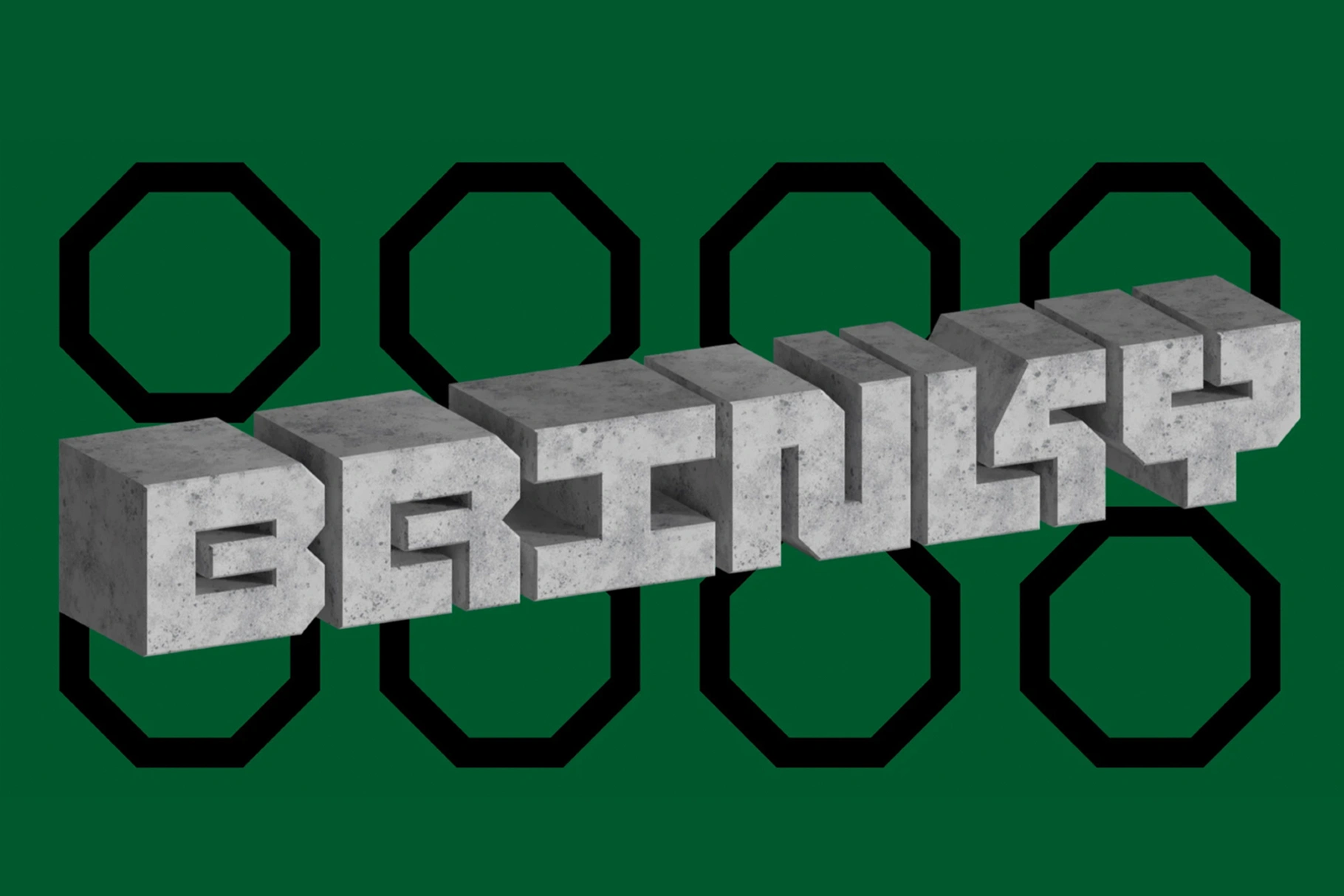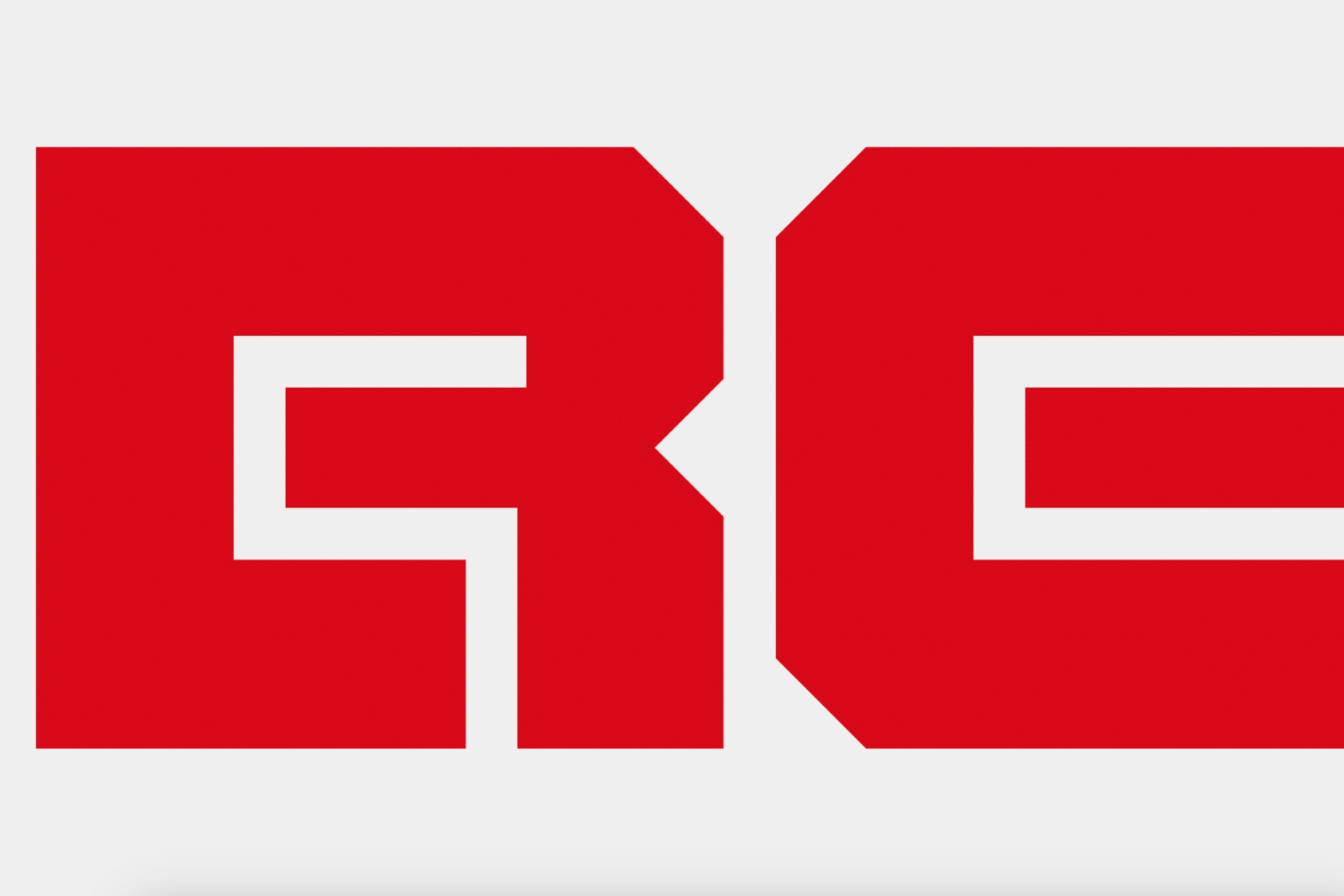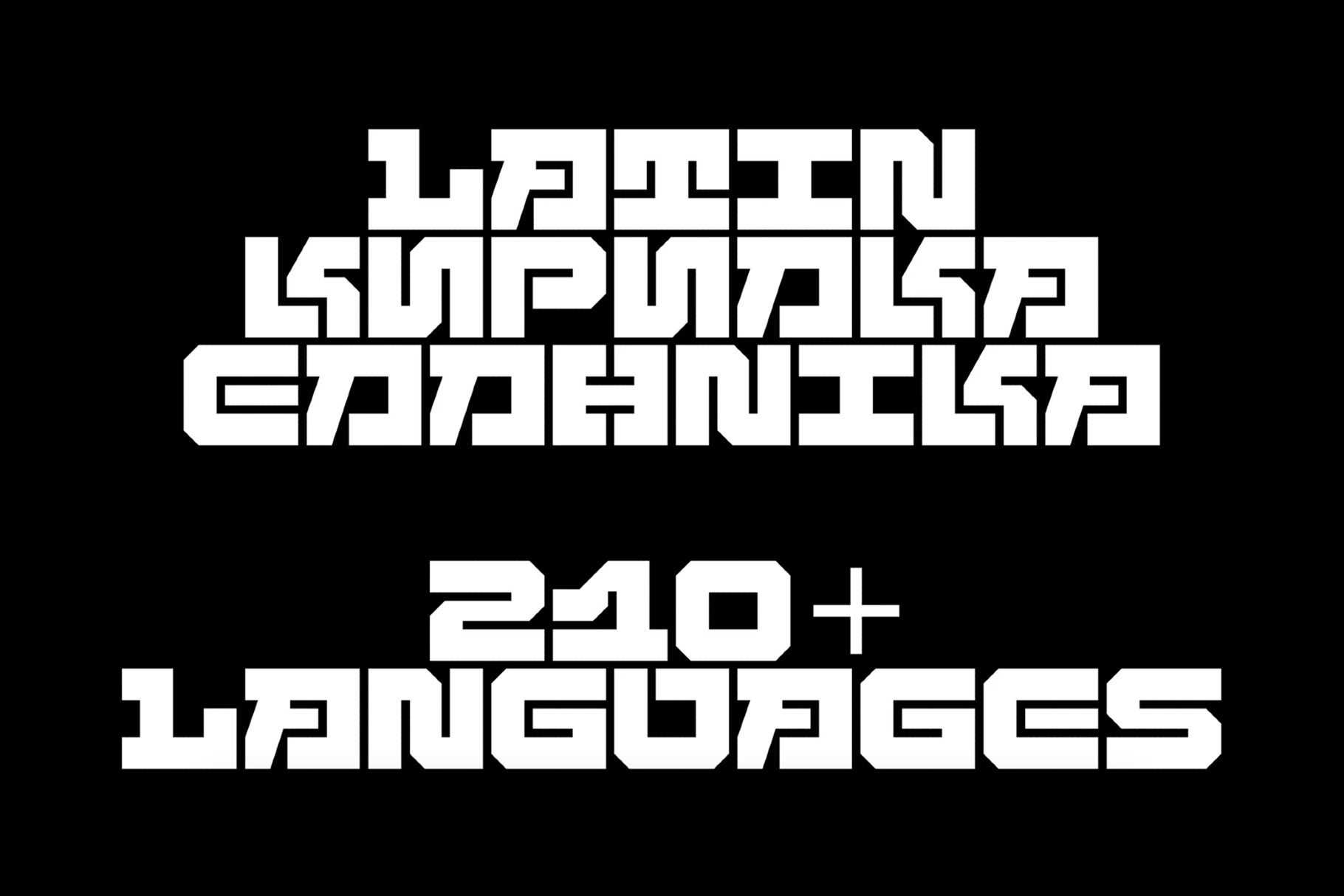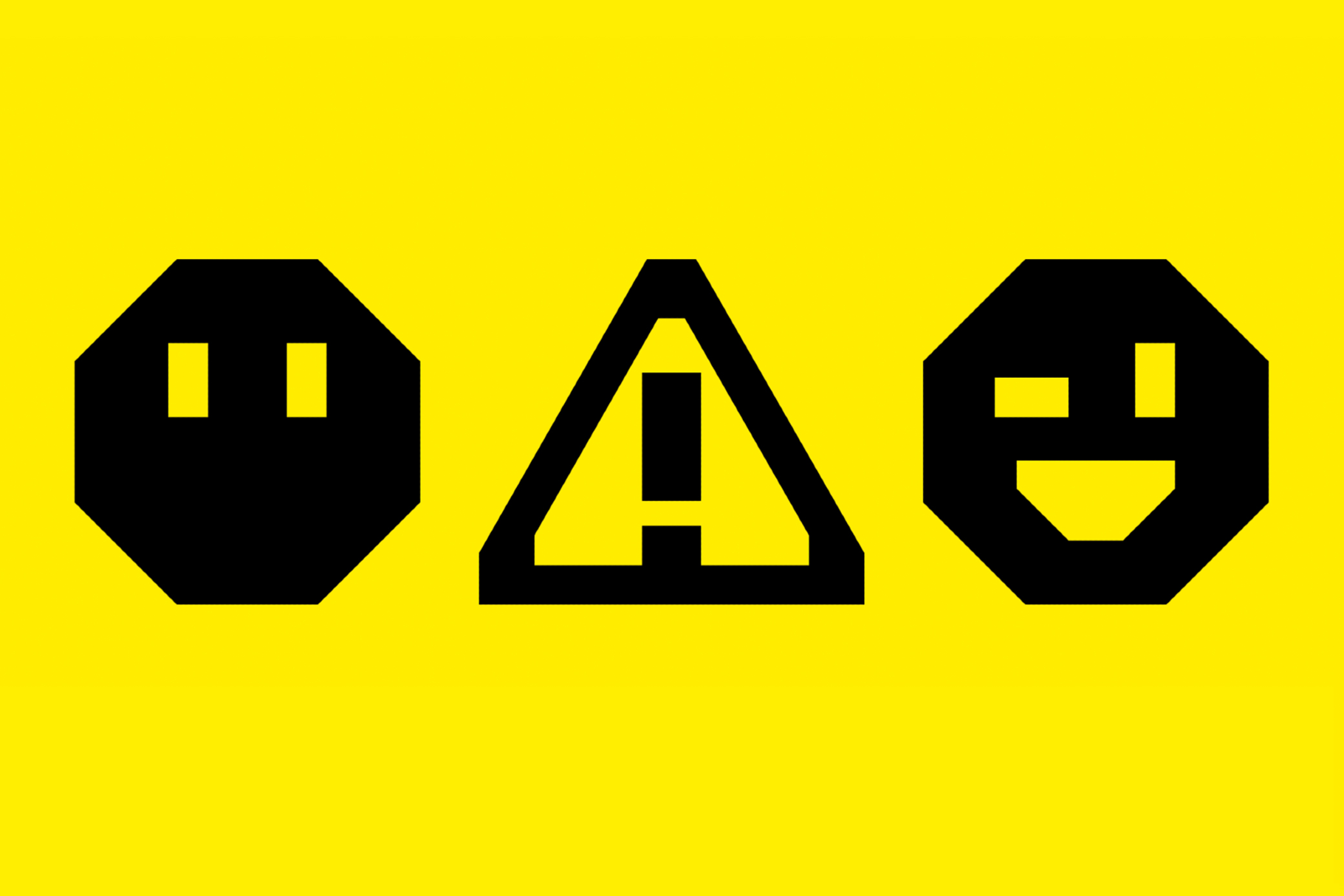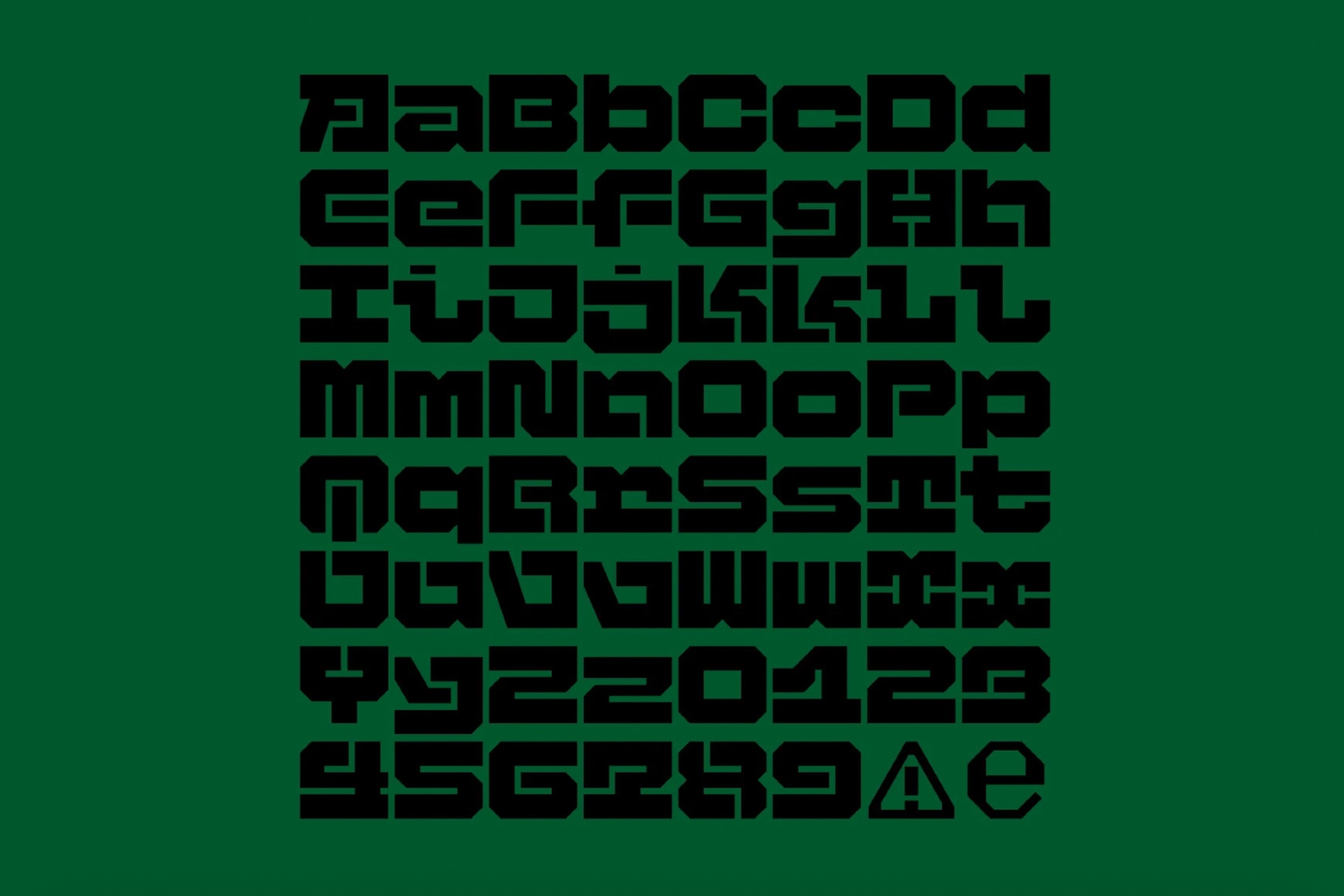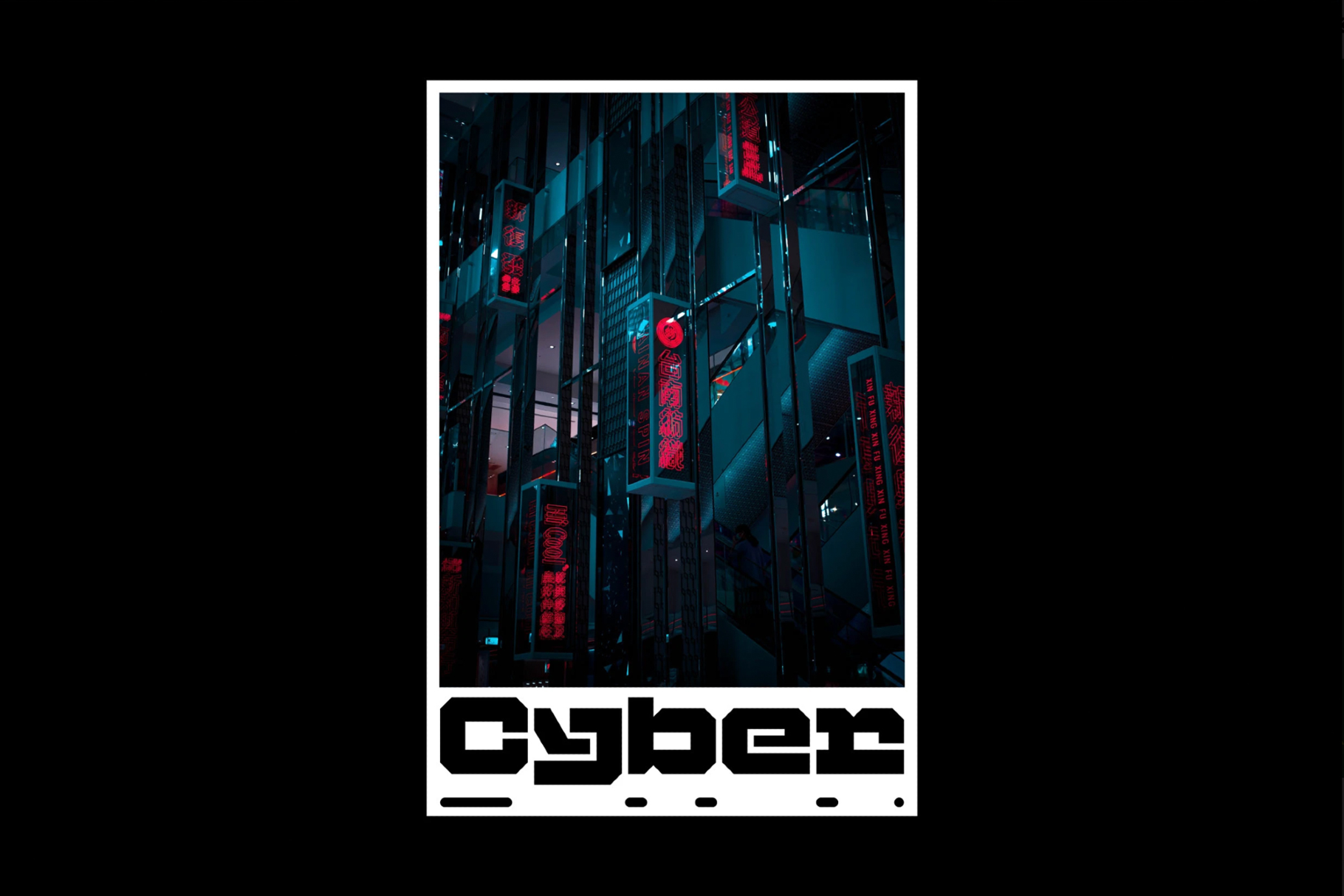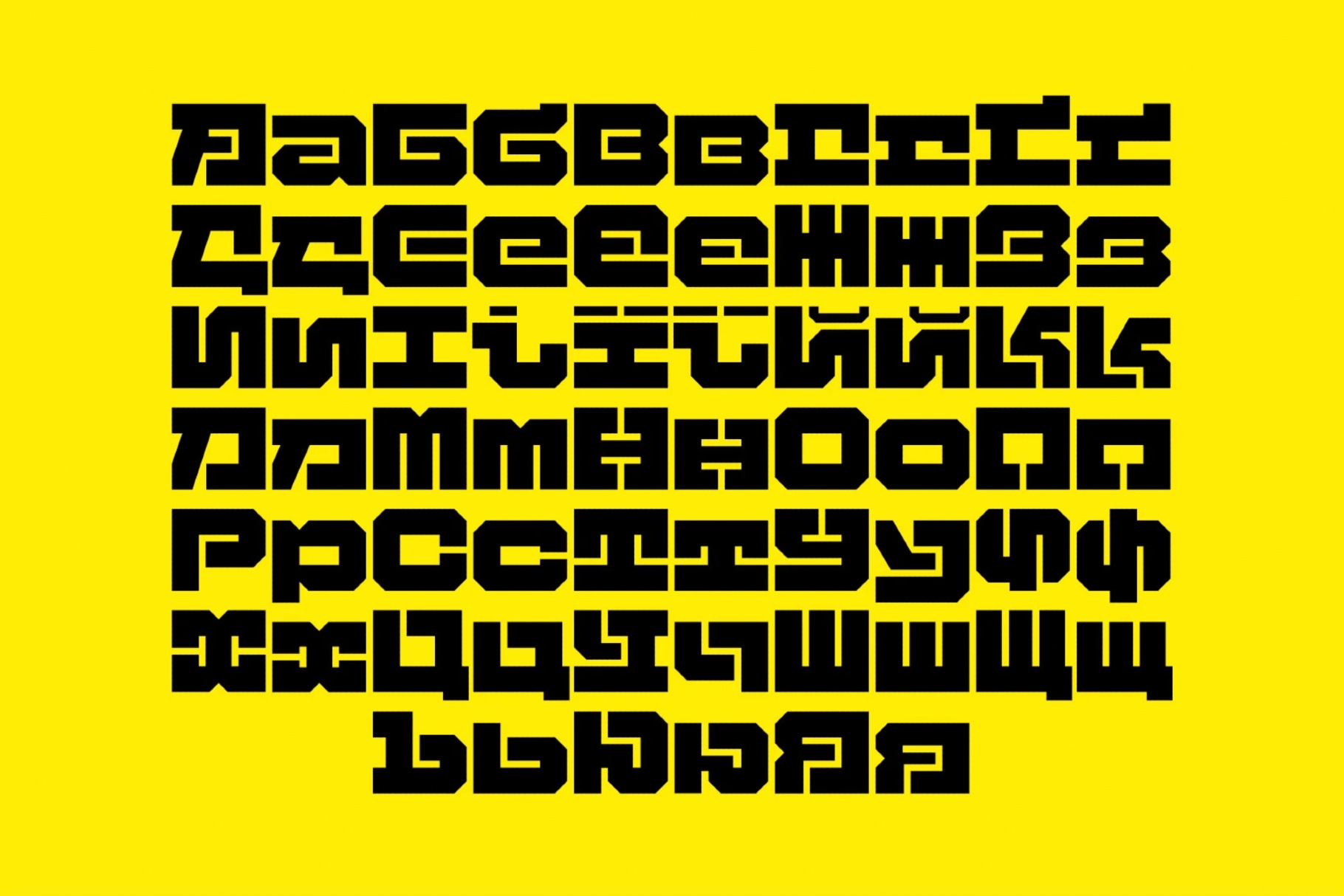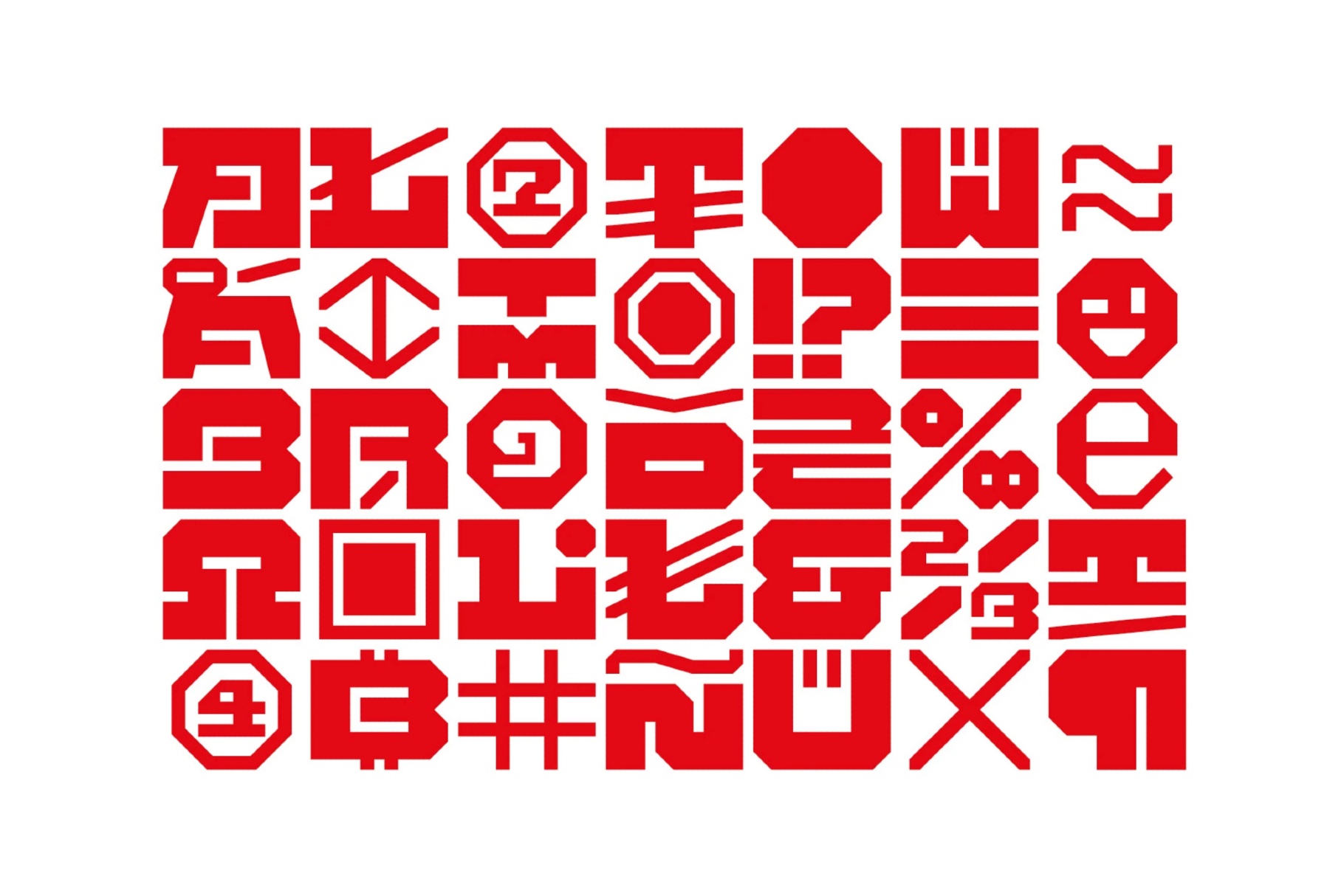
Brinky Mono Font
Brinky Mono is a block monospaced font shaped by early-80s console aesthetics, with wide square forms, soft corners, and a strict grid. Its playful rhythm fits techy branding, retro and indie game UIs, dashboard mockups, Y2K-leaning posters, sticker and merch sets, stream overlays, infographic labels, headings for developer tools, code snippets in presentations, interface prototypes, and bold display typography in digital products.
- International characters with multilingual support across extended Latin, Cyrillic, and Greek scripts, covering 100+ languages.
- Extended support for mathematical symbols and metrics.
- A set of dingbats.